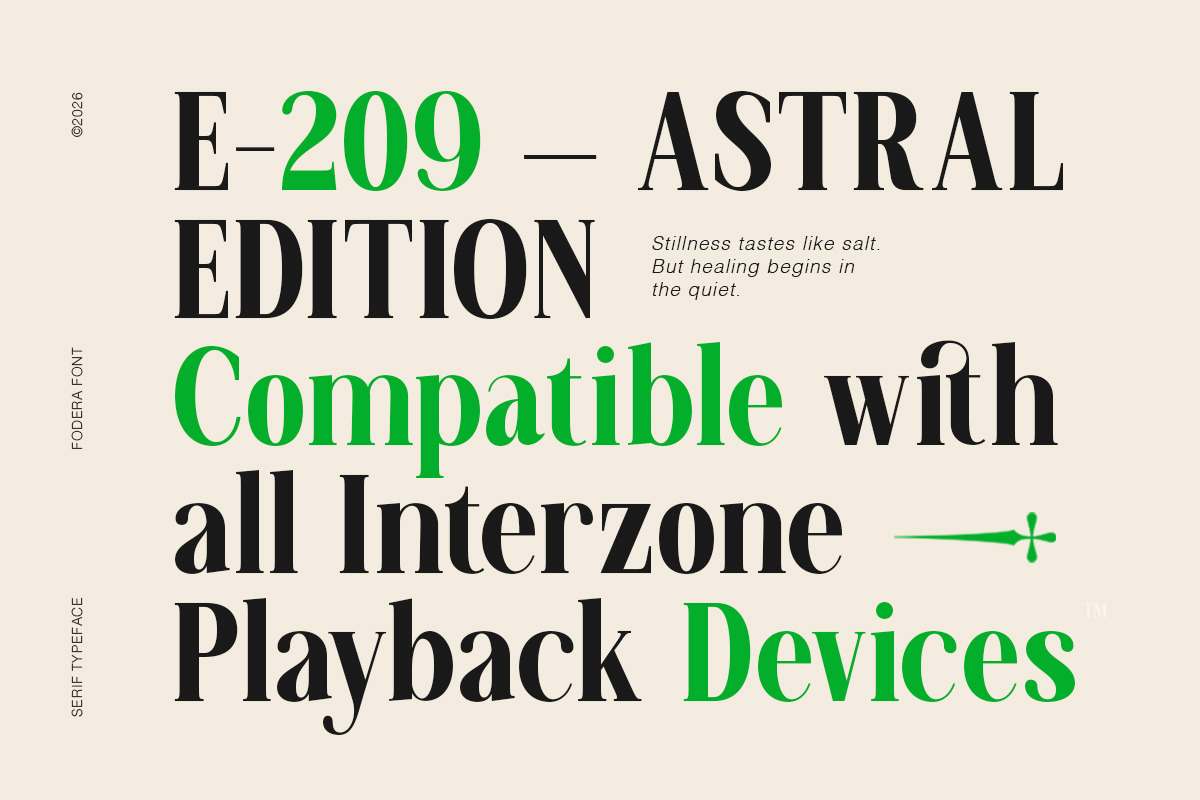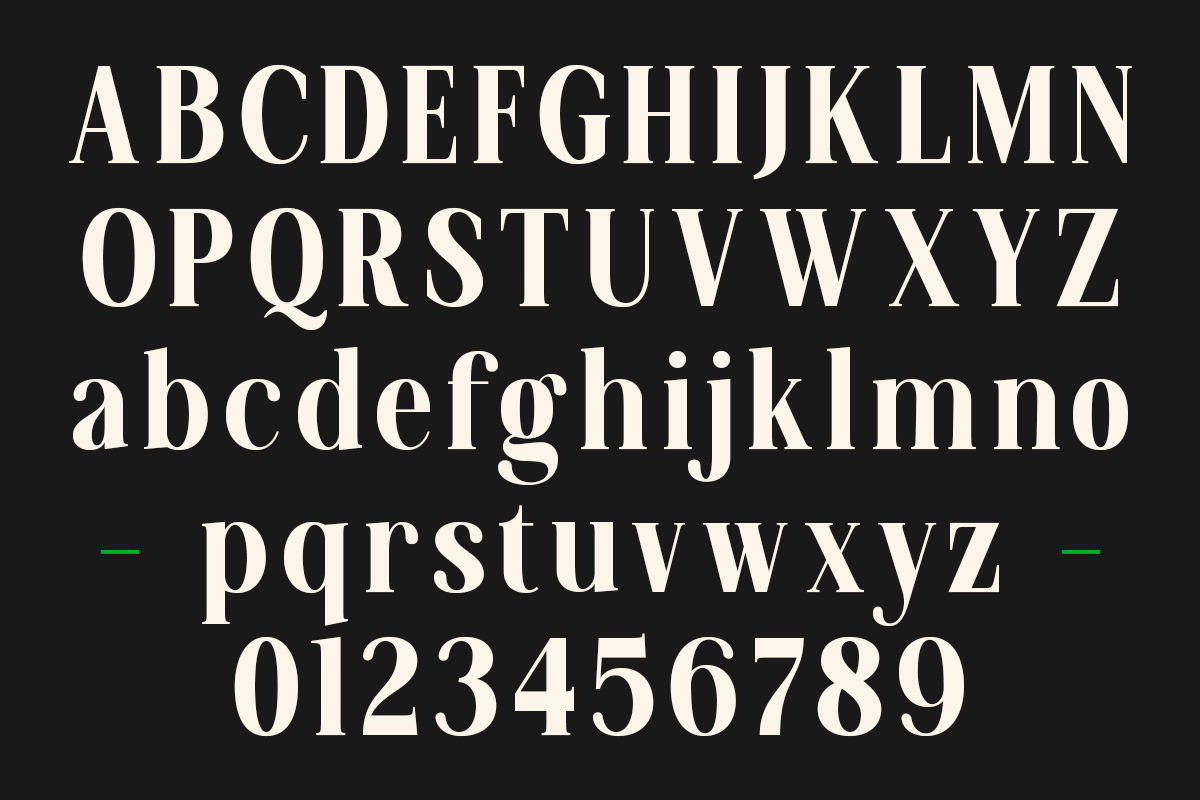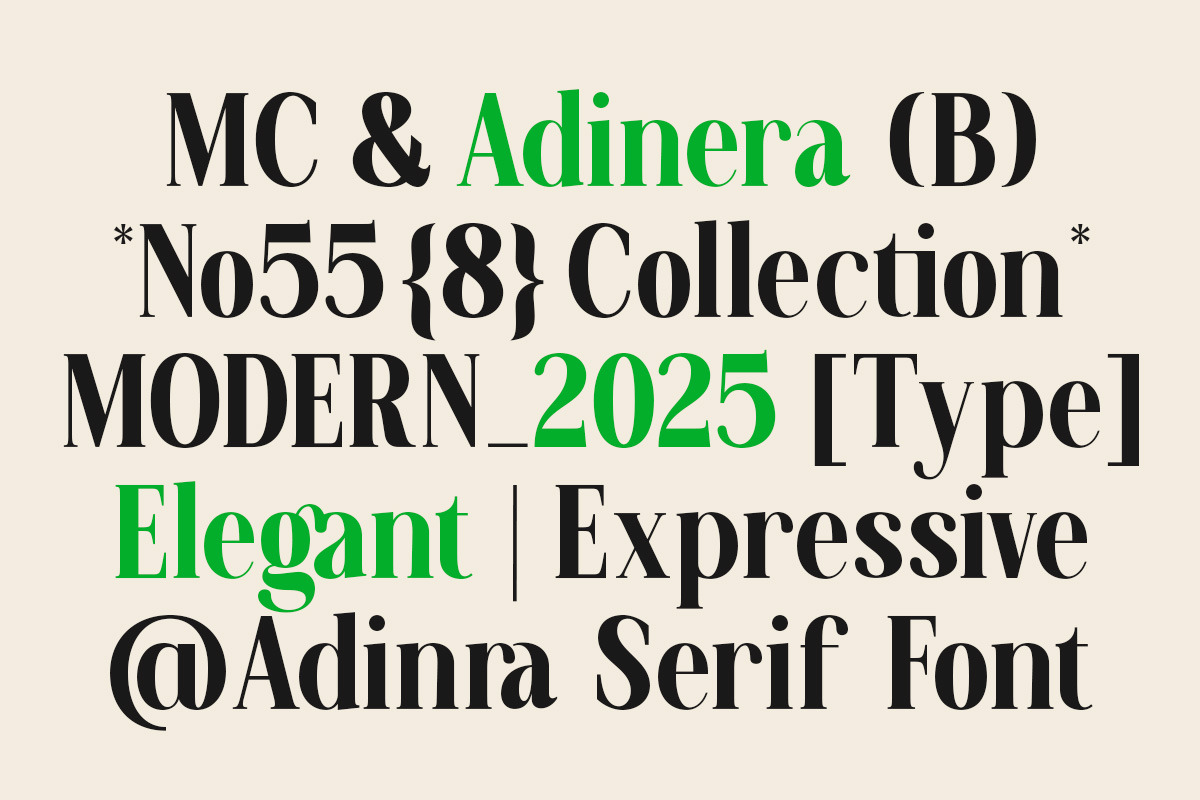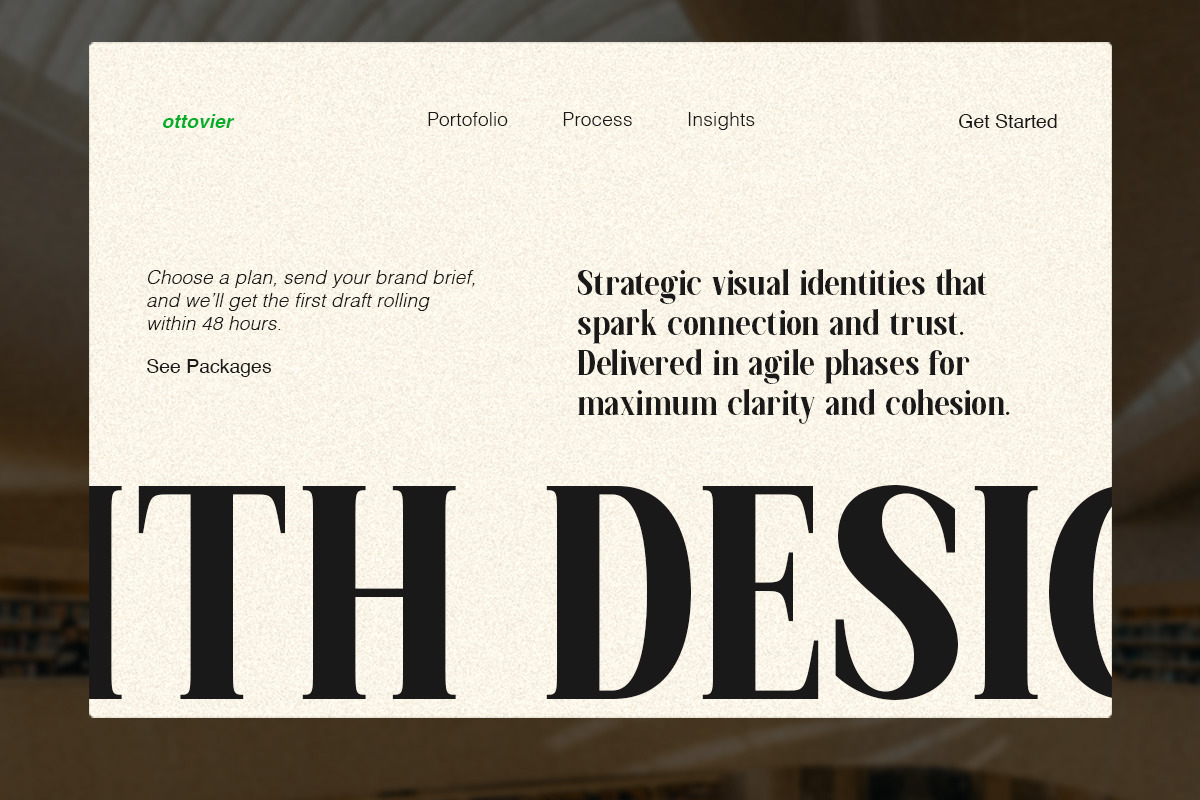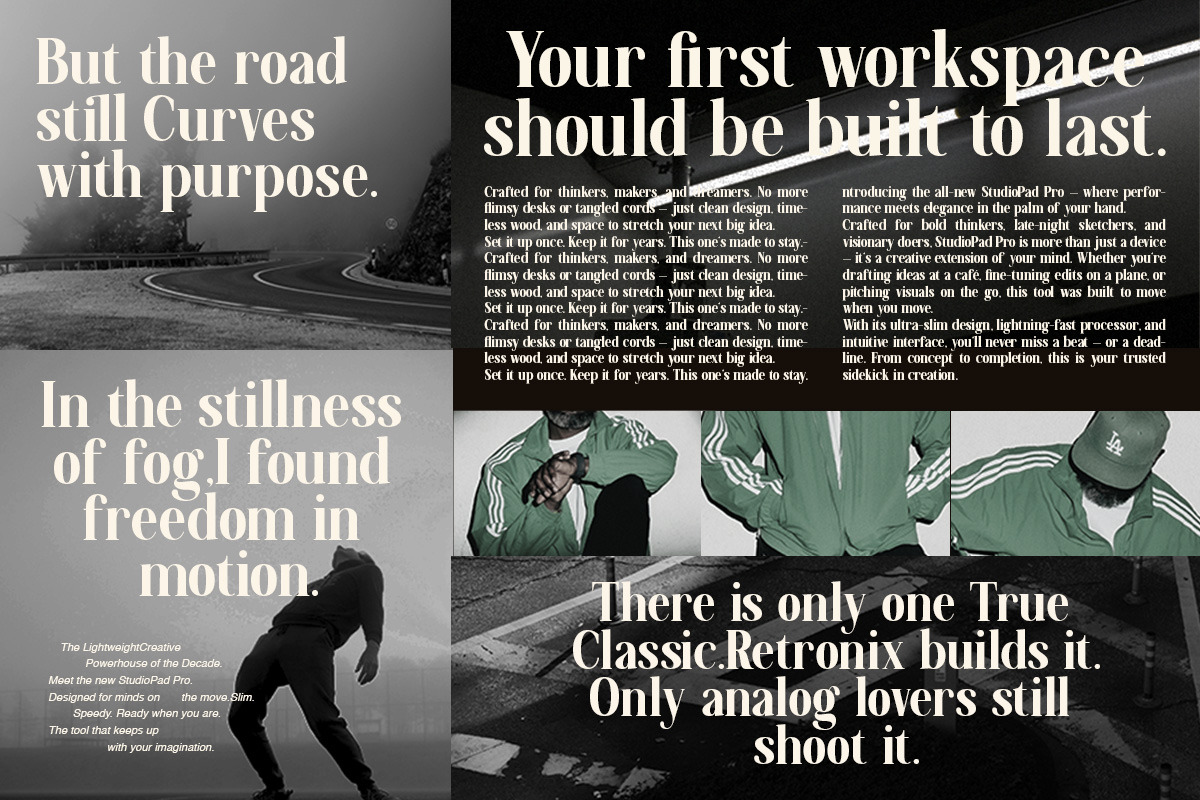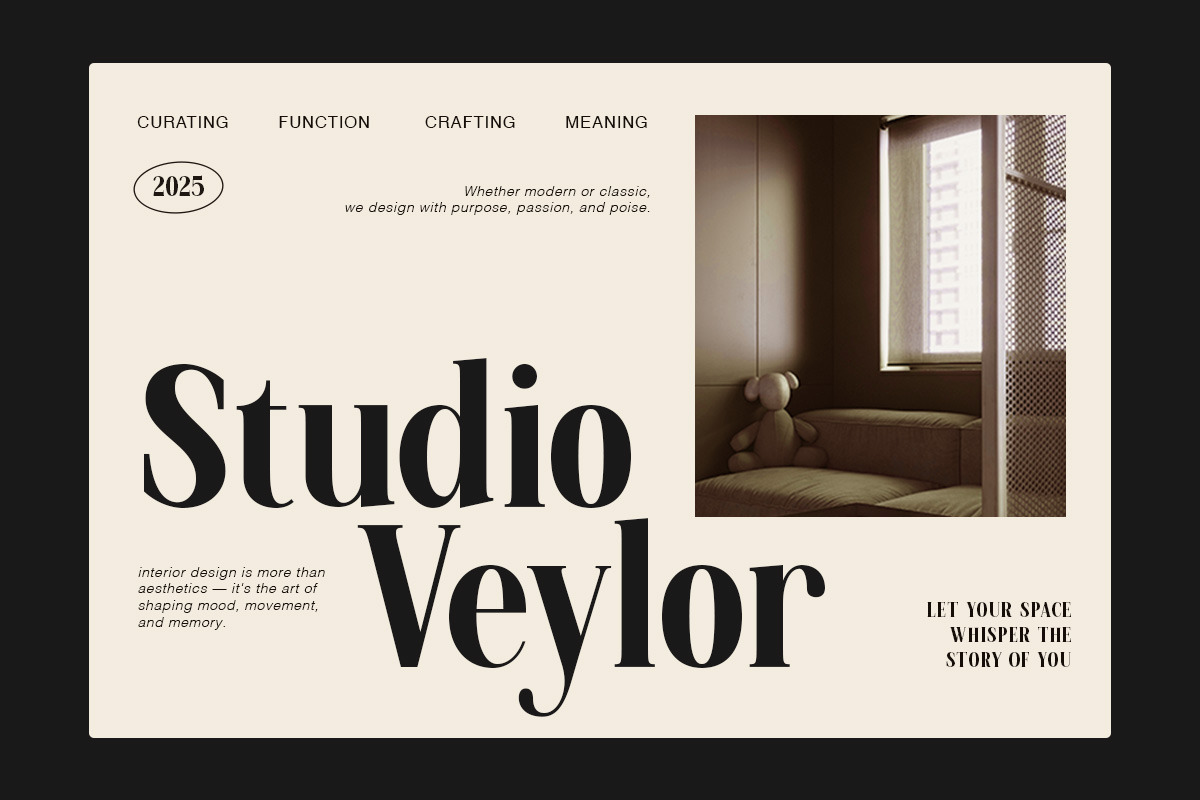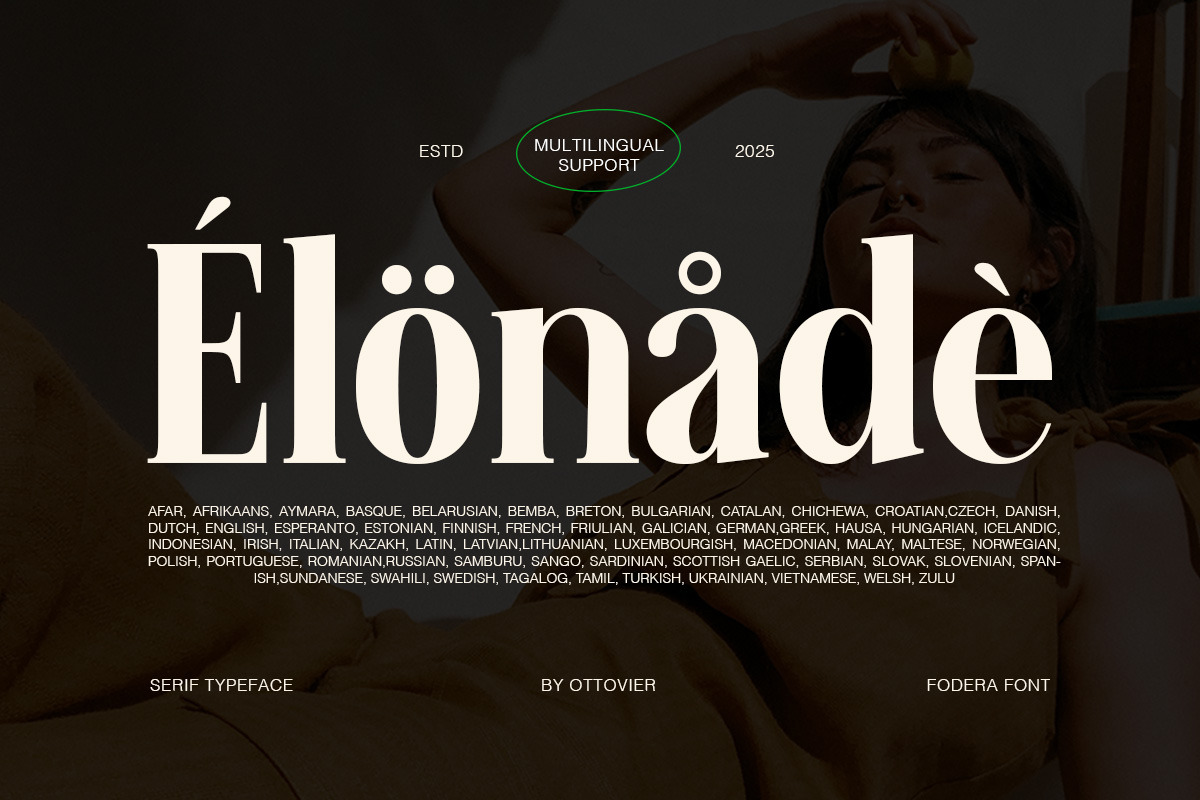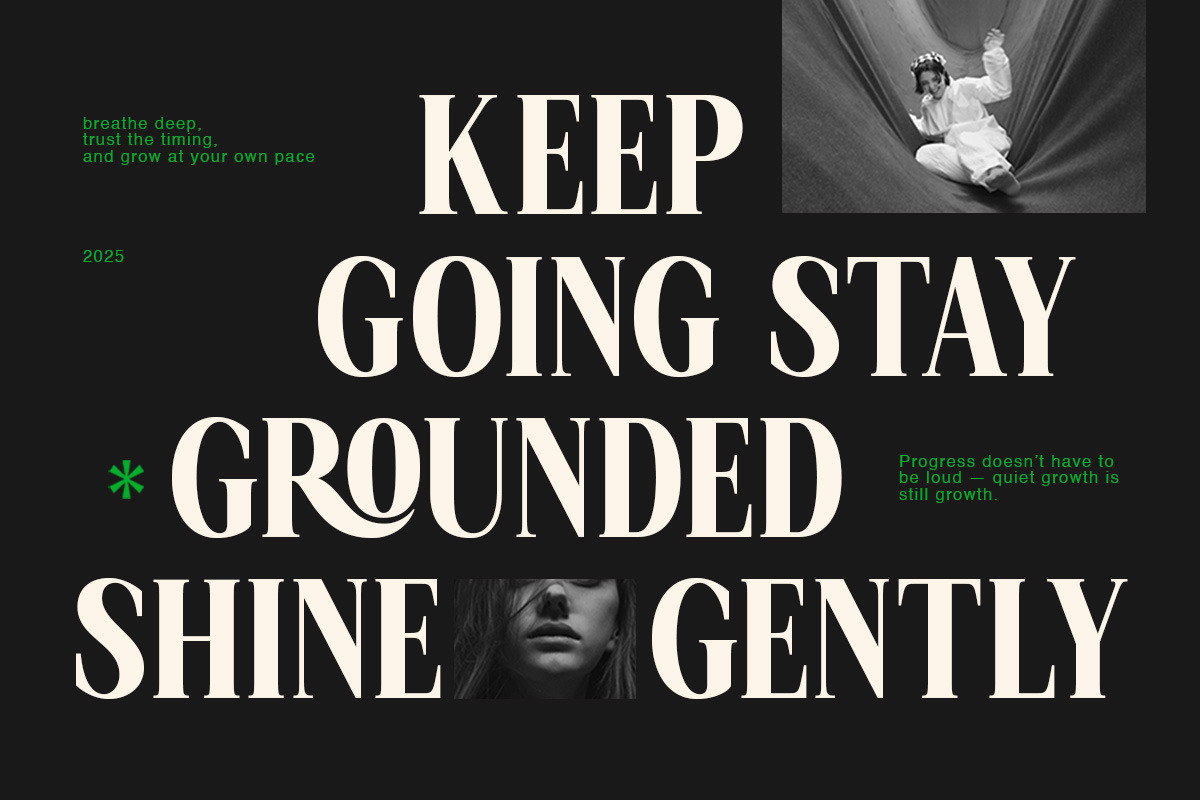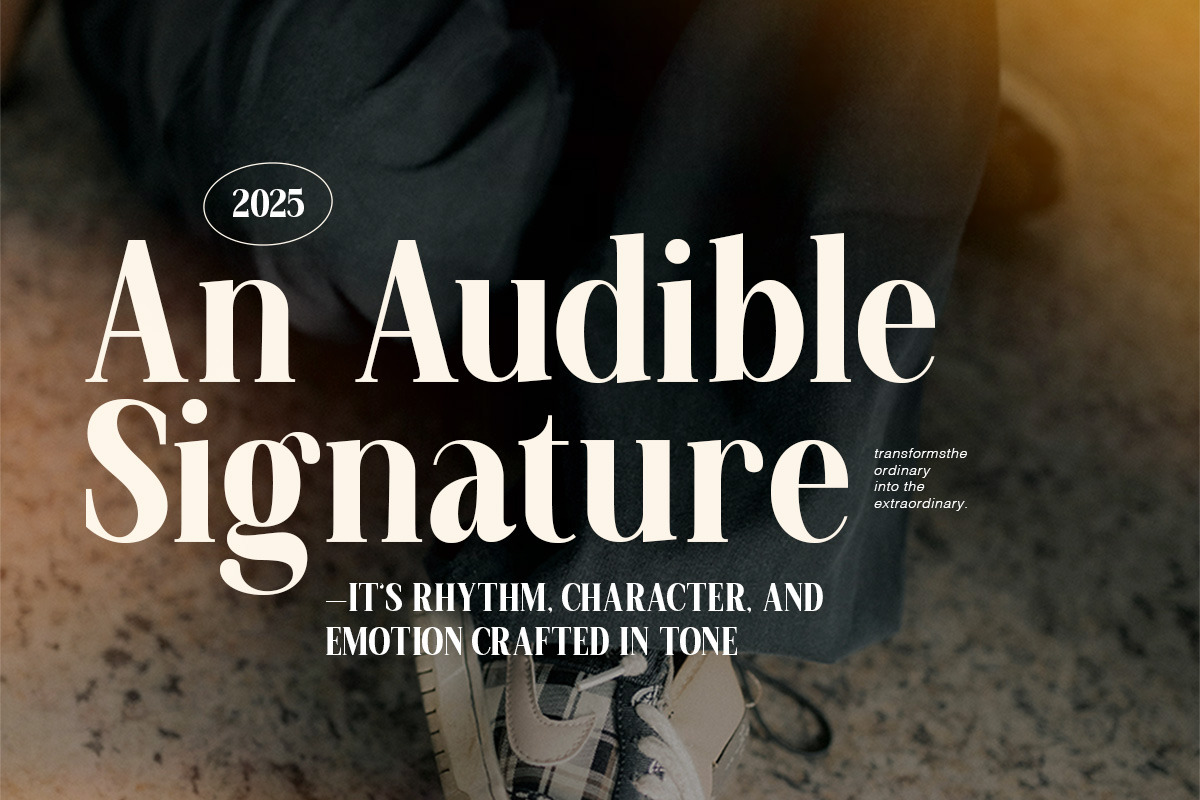
Fodera Elegant Expressive Modern
Fodera is a sophisticated serif typeface that blends timeless elegance with modern flair. Its high-contrast strokes, sculptural letterforms, and sharp serifs evoke a sense of luxury and editorial boldness — ideal for fashion, branding, and lifestyle design.
Crafted with care and precision, Fodera includes: • Beautiful ligatures for seamless letter combinations • Elegant alternates to add expressive typographic flair • Strong vertical rhythm and optical balance • Single weight with refined proportions for clear legibility
From magazine spreads and lookbooks to boutique logos and beauty packaging, Fodera brings a sense of drama, refinement, and visual harmony to every layout.
Features: • Serif Typeface • Single Weight • Ligatures & Alternates Included • Multilingual Support • Uppercase & Lowercase • Punctuation & Symbols • Ideal for Branding, Editorial Design, Packaging, and Display Use • Published ©2026
here timeless beauty meets modern form — Fodera speaks with elegance, confidence, and intention.